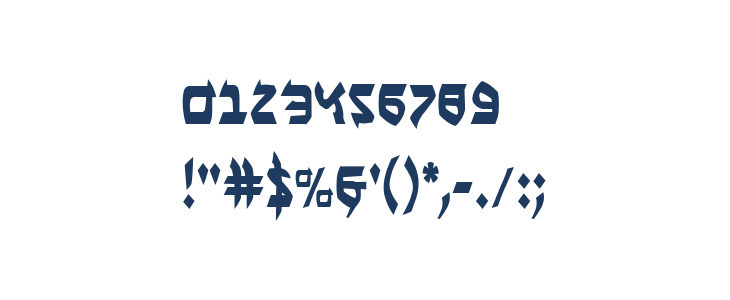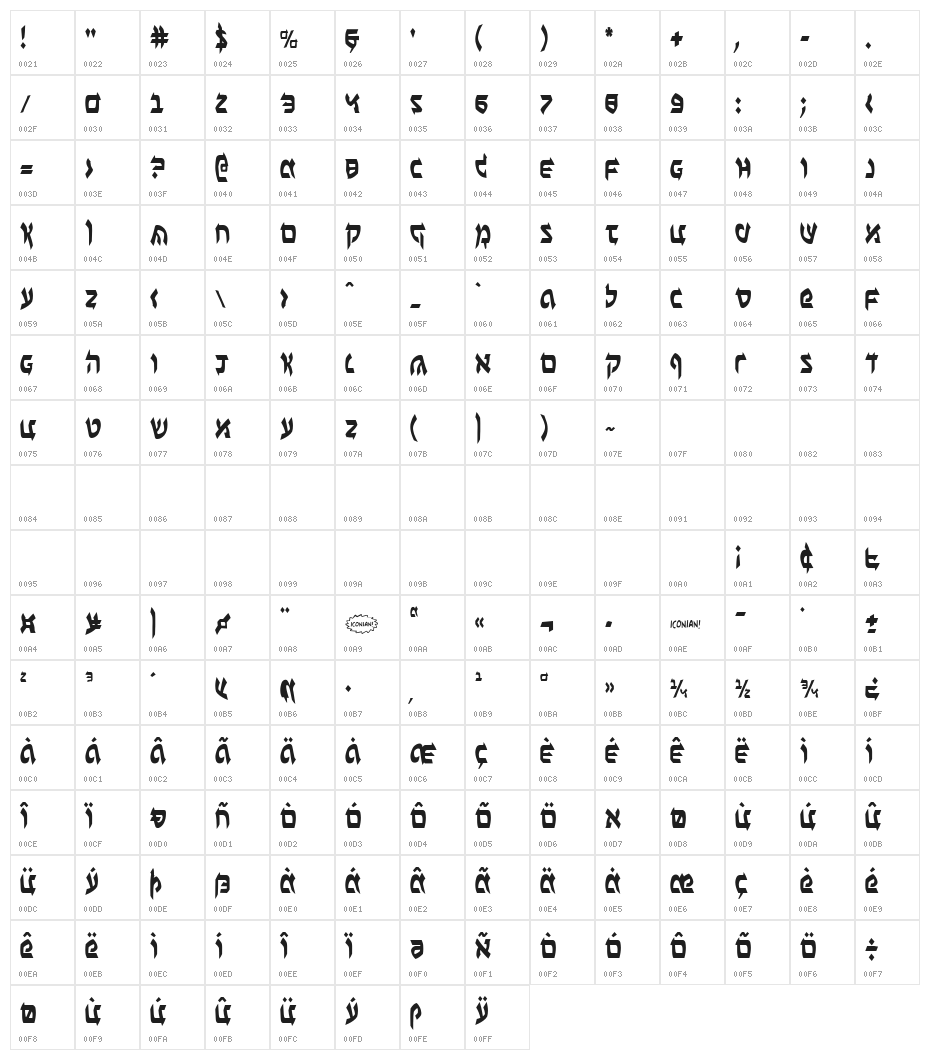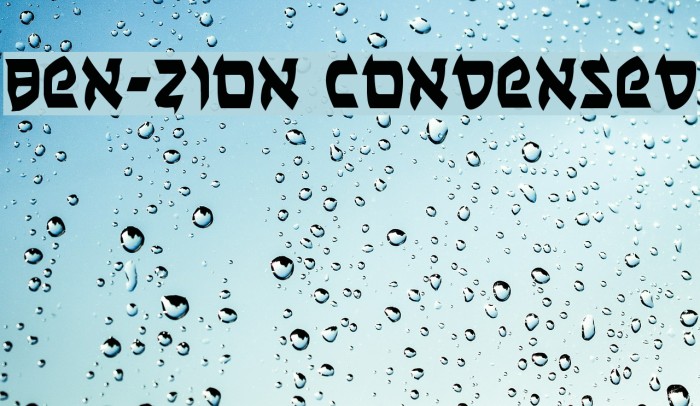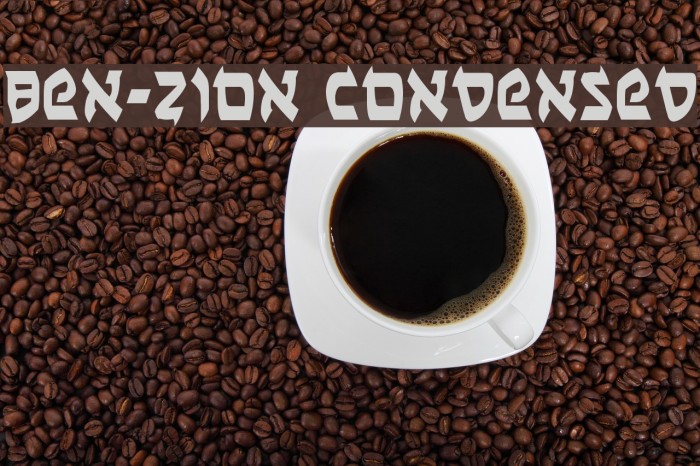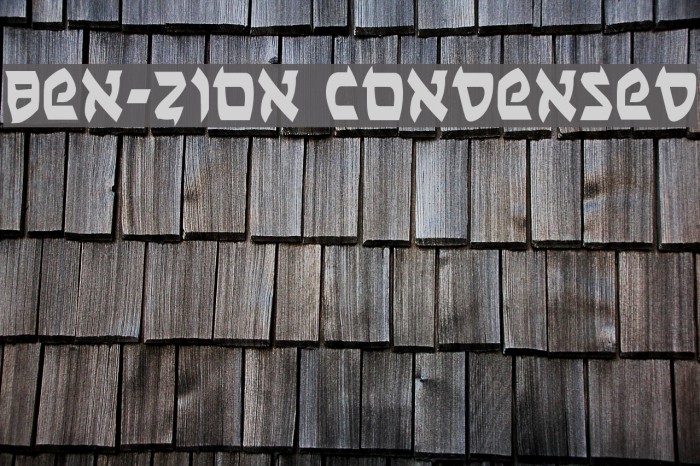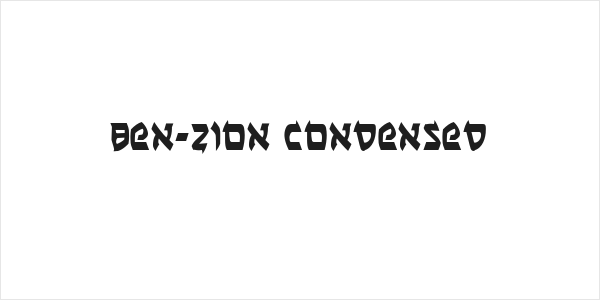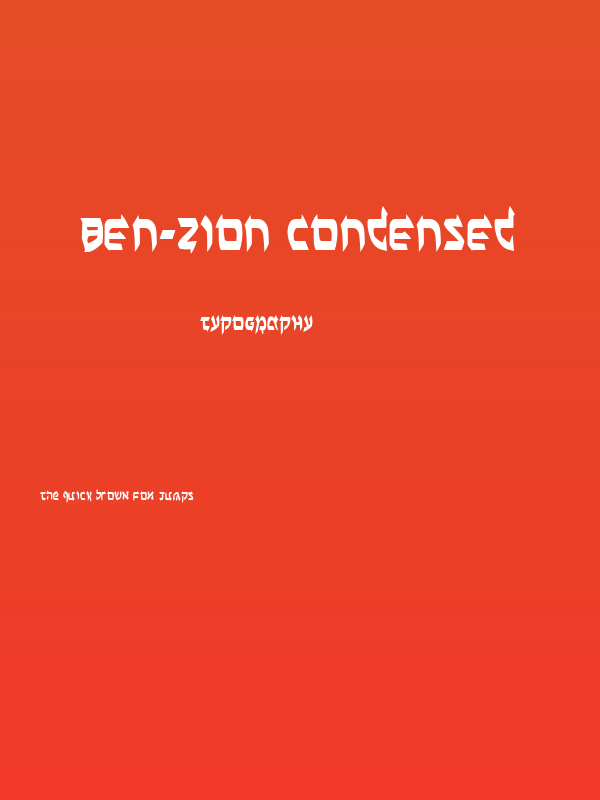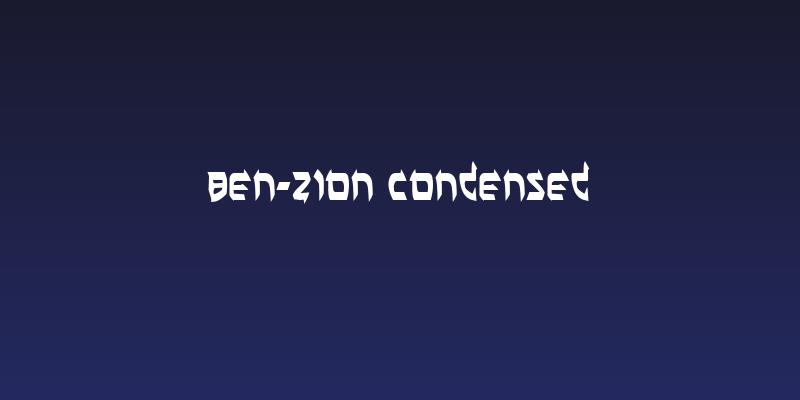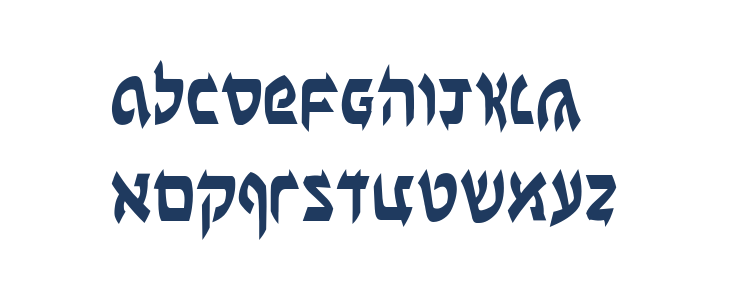
Ben-Zion Condensed Font
Ben-Zion Condensed Description
This font features a bold and angular design, characterized by sharp, geometric shapes and a condensed structure. The letters are crafted with a futuristic and edgy aesthetic, making them stand out with their unique form. The uppercase and lowercase letters maintain a consistent style, with each character exhibiting a distinct angularity that adds to the font's overall modern and dynamic appearance. The numbers and special characters follow the same design principles, ensuring uniformity across all glyphs. This font's striking appearance makes it suitable for projects that require a strong visual impact.
Proposed ProjectsIdeal for sci-fi themed posters, video game titles, branding for tech companies, and any project needing a modern, edgy look.